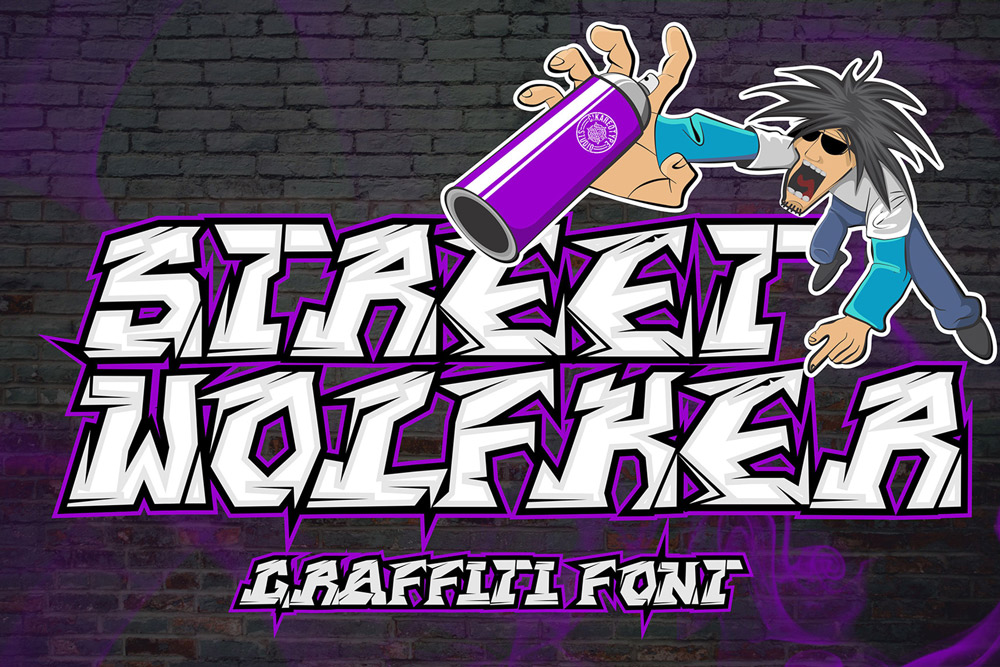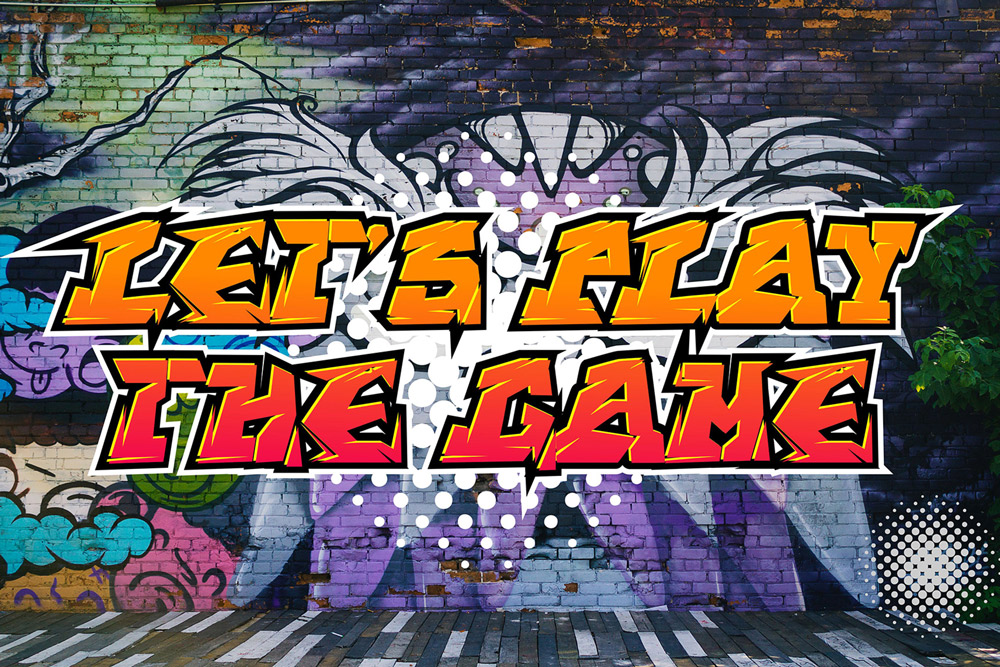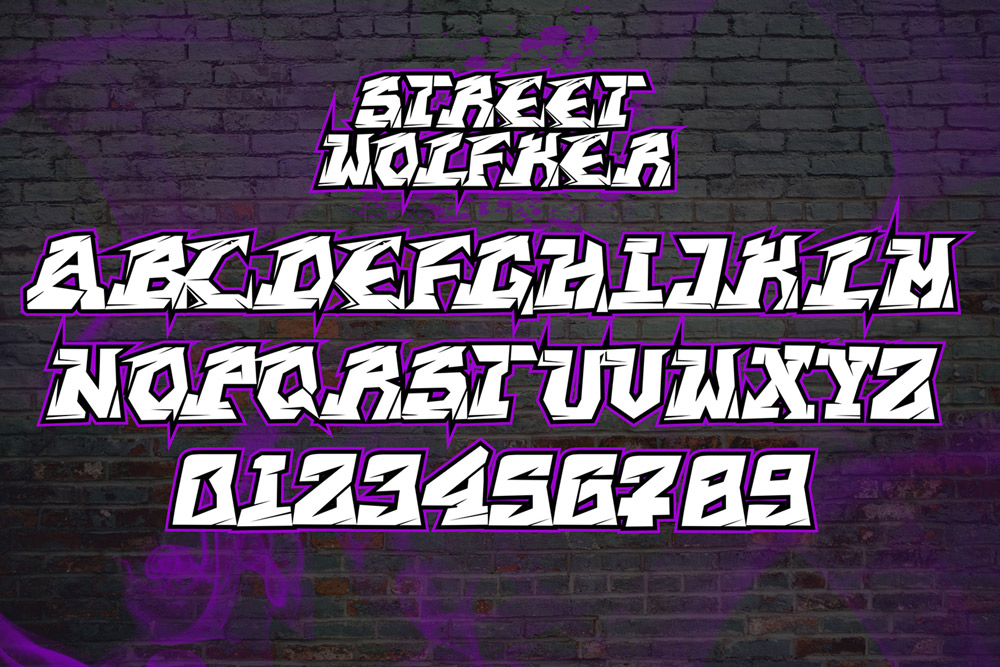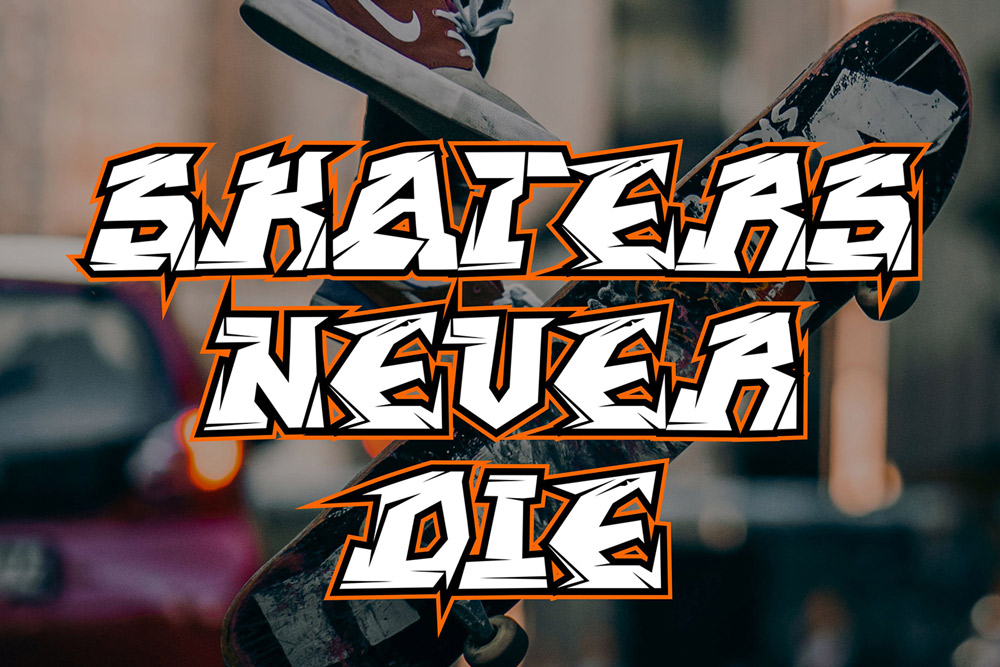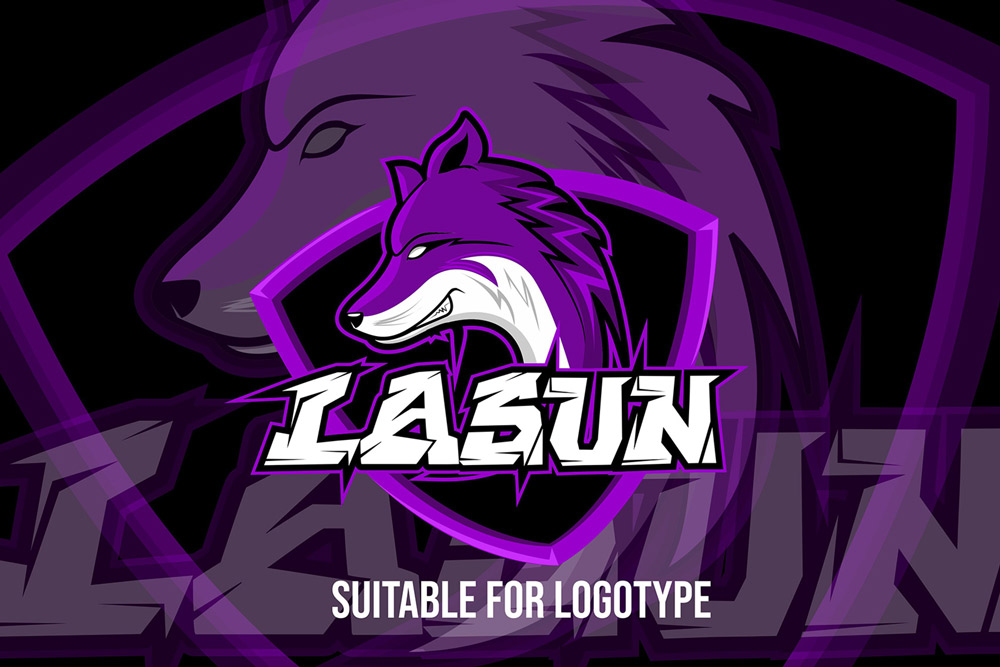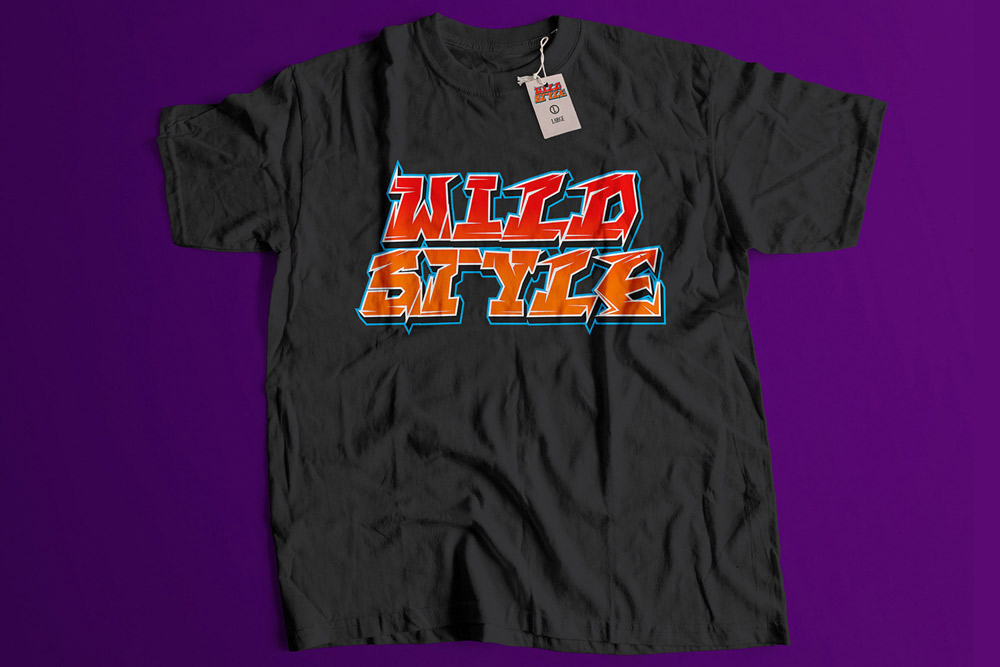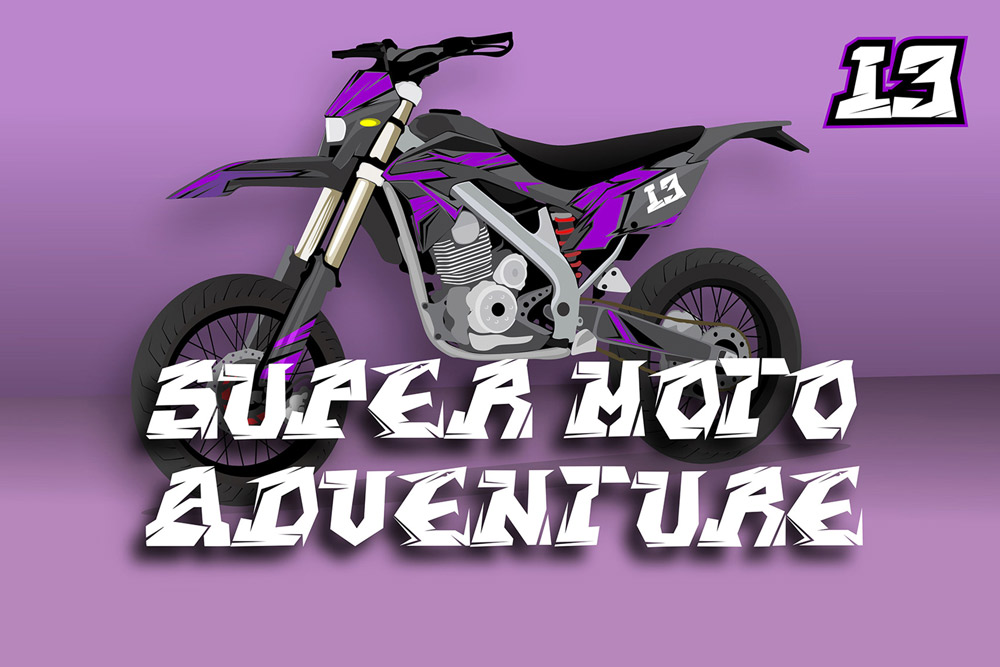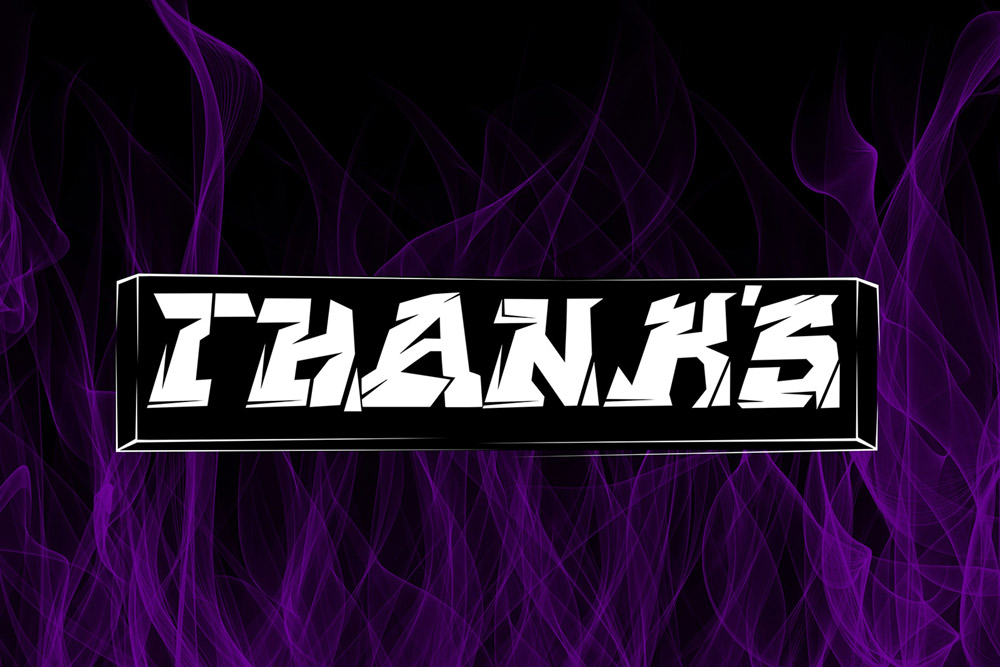
About Street Wolfker
Street Wolfker – Futurism and Wild Graffiti Font
Street Wolfker is a futuristic wild graffiti font inspired by cyberpunk visuals, underground street art, futuristic urban culture, and aggressive graffiti typography trends. Designed with sharp letterforms, dynamic futuristic details, and expressive wildstyle energy, this urban display font delivers powerful visual impact for modern creative projects. Whether you are creating streetwear branding, gaming graphics, music artwork, esports visuals, or social media content, Street Wolfker gives your typography a bold futuristic street identity that instantly stands out.
This futuristic graffiti font combines modern cyber-inspired typography with authentic urban graffiti aesthetics, making it ideal for creators who want edgy and trend-driven visuals. The wild graffiti structure creates energetic movement and strong personality, while the futuristic details give every composition a modern digital atmosphere. Designers searching for a cyberpunk graffiti font with strong urban energy will appreciate the balance between artistic expression and professional typography quality.
Street Wolfker is carefully crafted to maintain readability while preserving the raw spirit of underground street culture. The futuristic urban style makes this graffiti display font highly effective for logos, posters, apparel graphics, gaming branding, and digital campaigns. From hip hop album covers and YouTube thumbnails to fashion branding and esports promotions, Street Wolfker adapts perfectly to modern creative industries across both print and digital media.
Futuristic Graffiti Font Style
Street Wolfker features futuristic graffiti-inspired letterforms influenced by cyberpunk visuals, urban wall art, digital street culture, and wildstyle spray paint typography. The aggressive structure creates a bold futuristic urban appearance.
Uppercase Characters
This modern graffiti font includes complete uppercase characters designed with sharp futuristic details and authentic street-inspired personality.
Multilingual Support
Street Wolfker supports multilingual characters, making it suitable for international branding projects, gaming graphics, posters, merchandise, and social media campaigns.
Number and Punctuation
This futuristic display font includes complete numbers and punctuation marks for flexible typography compositions across print and digital applications.
Why Designers Love Street Wolfker
Unique Futuristic Urban Aesthetic
Designers love Street Wolfker because it combines authentic graffiti culture with futuristic cyber-inspired typography. The wild urban structure instantly creates powerful visual energy.
Perfect for Streetwear Branding
Street Wolfker works exceptionally well for clothing brands, sneaker promotions, skateboard graphics, urban fashion campaigns, and futuristic streetwear collections.
Excellent for Gaming and Esports Graphics
This futuristic graffiti font is ideal for gaming logos, esports branding, Twitch banners, YouTube thumbnails, cyberpunk posters, and digital entertainment visuals.
Eye-Catching Social Media Typography
Content creators and digital marketers use Street Wolfker for Instagram graphics, TikTok visuals, YouTube banners, and promotional campaigns because the futuristic typography feels modern and highly engaging.
Flexible Across Creative Projects
Despite its aggressive futuristic appearance, Street Wolfker maintains strong readability and works effectively for posters, merchandise, branding systems, digital advertising, and apparel graphics.
Perfect For
Street Wolfker is perfect for:
- Streetwear branding
- Futuristic logo design
- Graffiti posters
- Gaming typography
- Esports branding
- Cyberpunk artwork
- Hip hop album covers
- Social media graphics
- YouTube thumbnails
- Urban merchandise
- Skateboard graphics
- Fashion campaigns
- Promotional banners
- Digital advertising
- Creative typography projects
- Youth branding visuals
- Festival posters
- Music event flyers
- Sci-fi urban graphics
- Modern street artwork
Futuristic Graffiti Typography for Modern Branding
Modern branding trends increasingly embrace futuristic graffiti typography and cyber-inspired urban visuals because they communicate innovation, rebellion, creativity, and youthful energy. Street Wolfker is specifically designed to support these modern creative trends through aggressive futuristic lettering and authentic street culture aesthetics.
The futuristic graffiti structure gives typography compositions a more energetic and high-tech appearance. This modern urban font is especially effective for oversized headlines, gaming graphics, branding systems, social media campaigns, apparel artwork, and digital promotions targeting younger audiences.